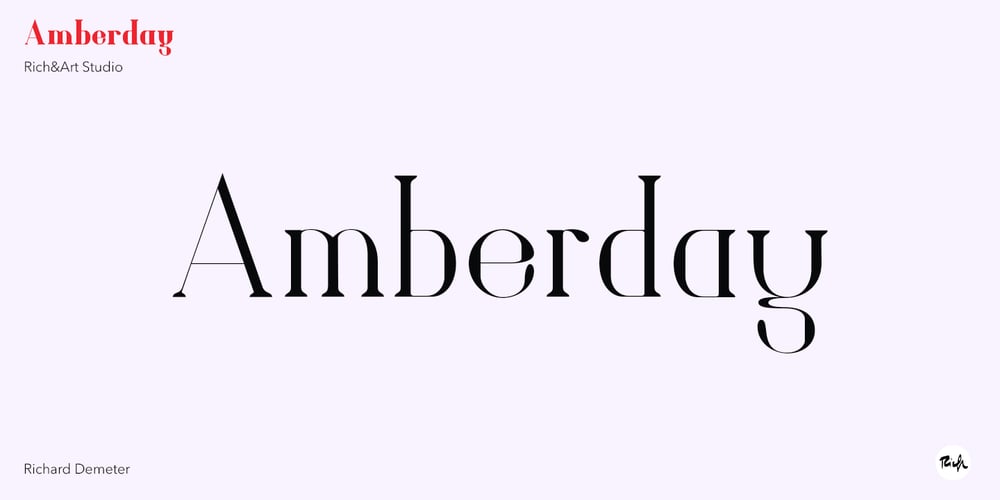
Amberday
Amberday font
Amberday Font Family was designed by Richard Demeter and published by Richarts. Amberday contains 8 styles and family package options. Amberday is a modern display serif typeface to be used more than just as a header font. When I was creating this typeface my first though was to create a light font but strong enough to stand as a header font. Amberday is a perfect typeface to use for logo design, webdesign, header design, typedesign, posters and many more. Amberday family includes eight weight starting with Thin and ending with a Heavy style. Each style includes kerning, ligatures and alternates.